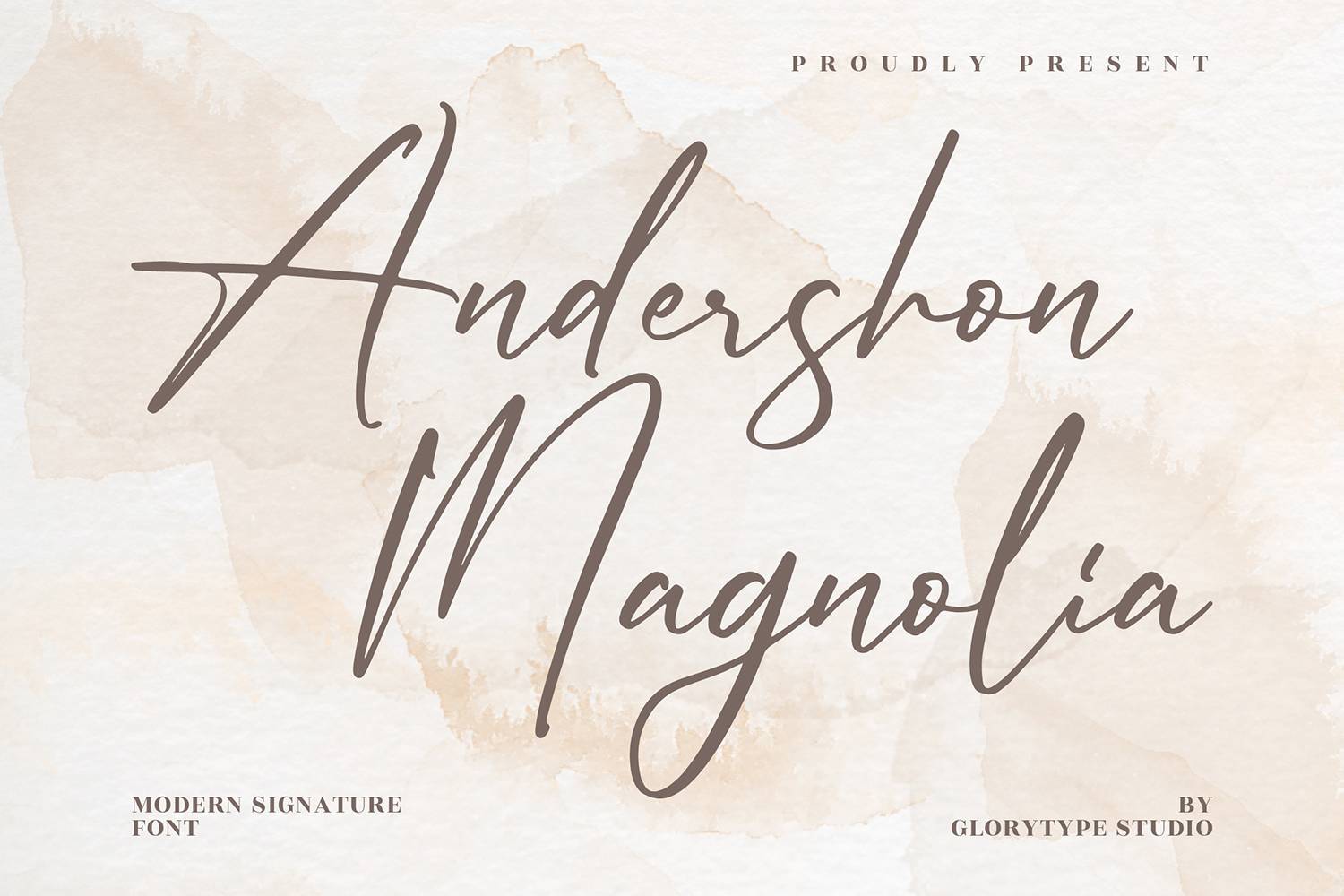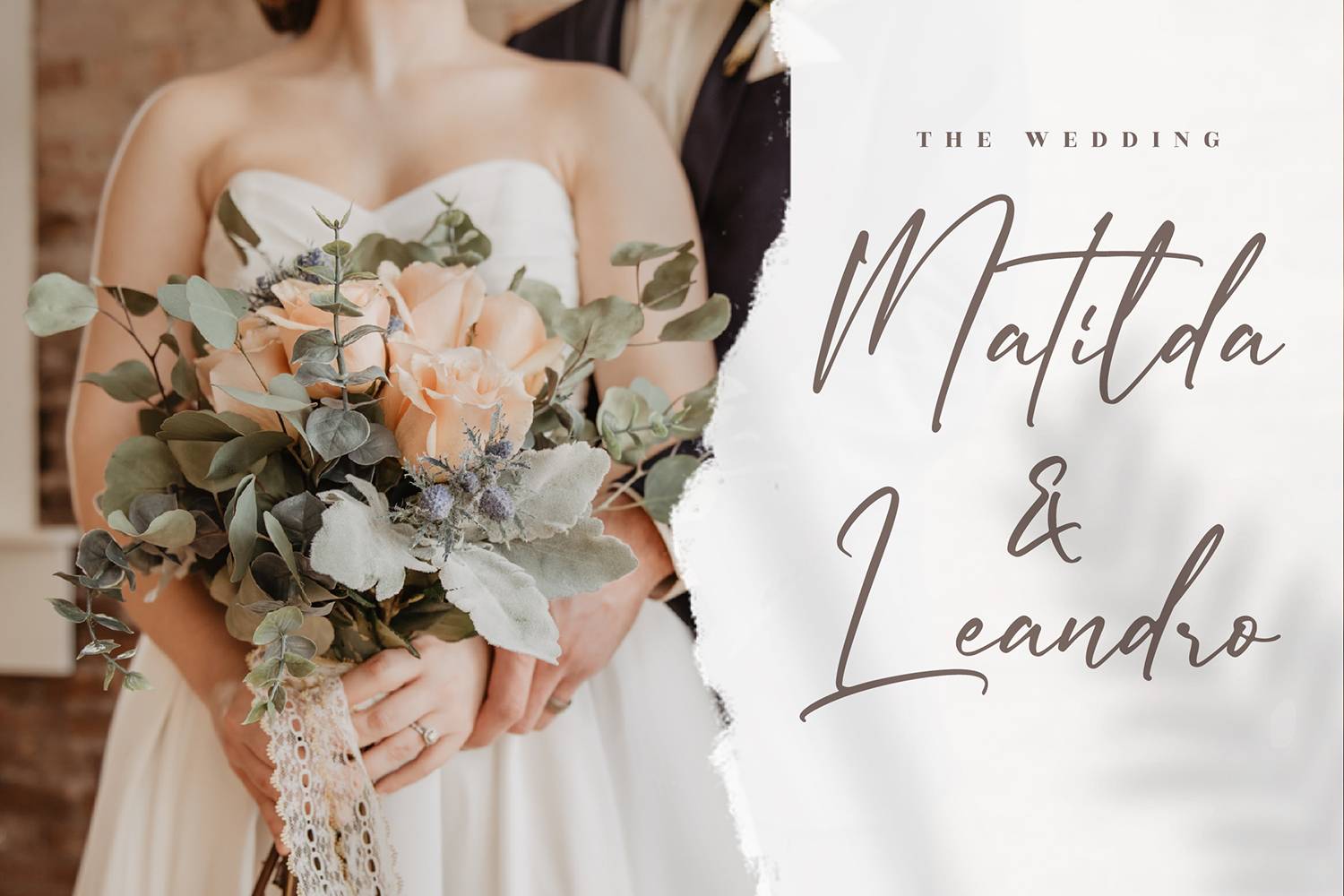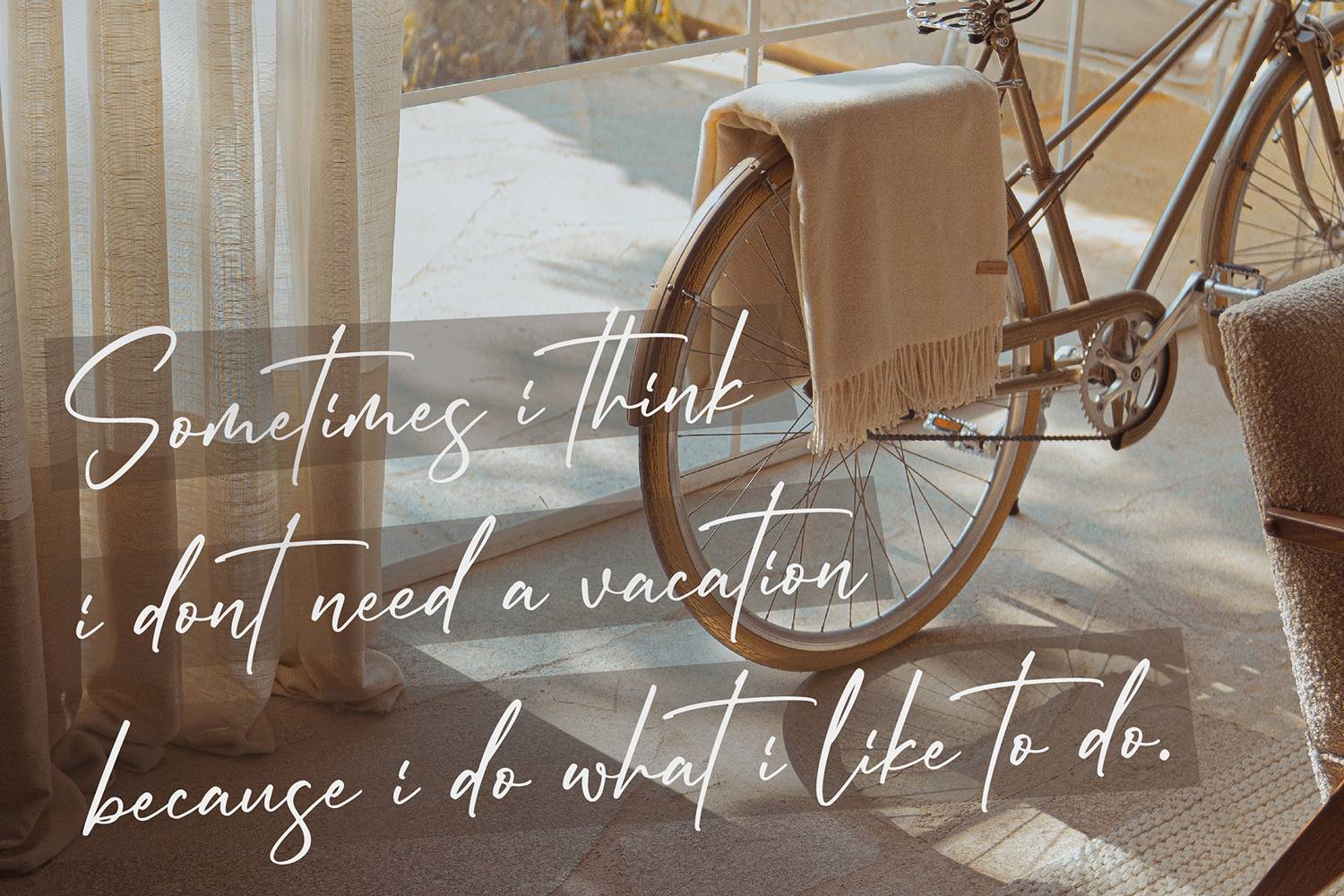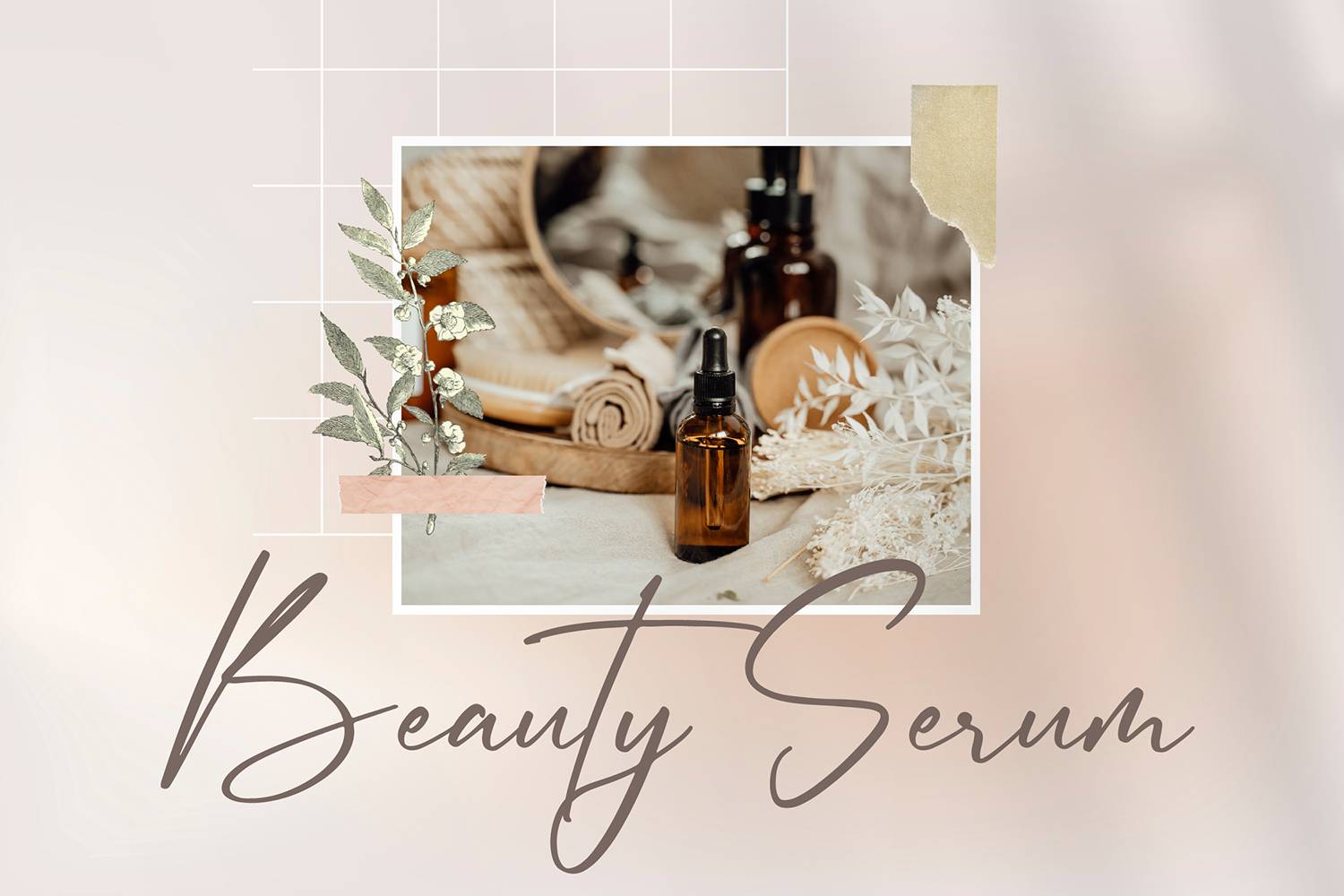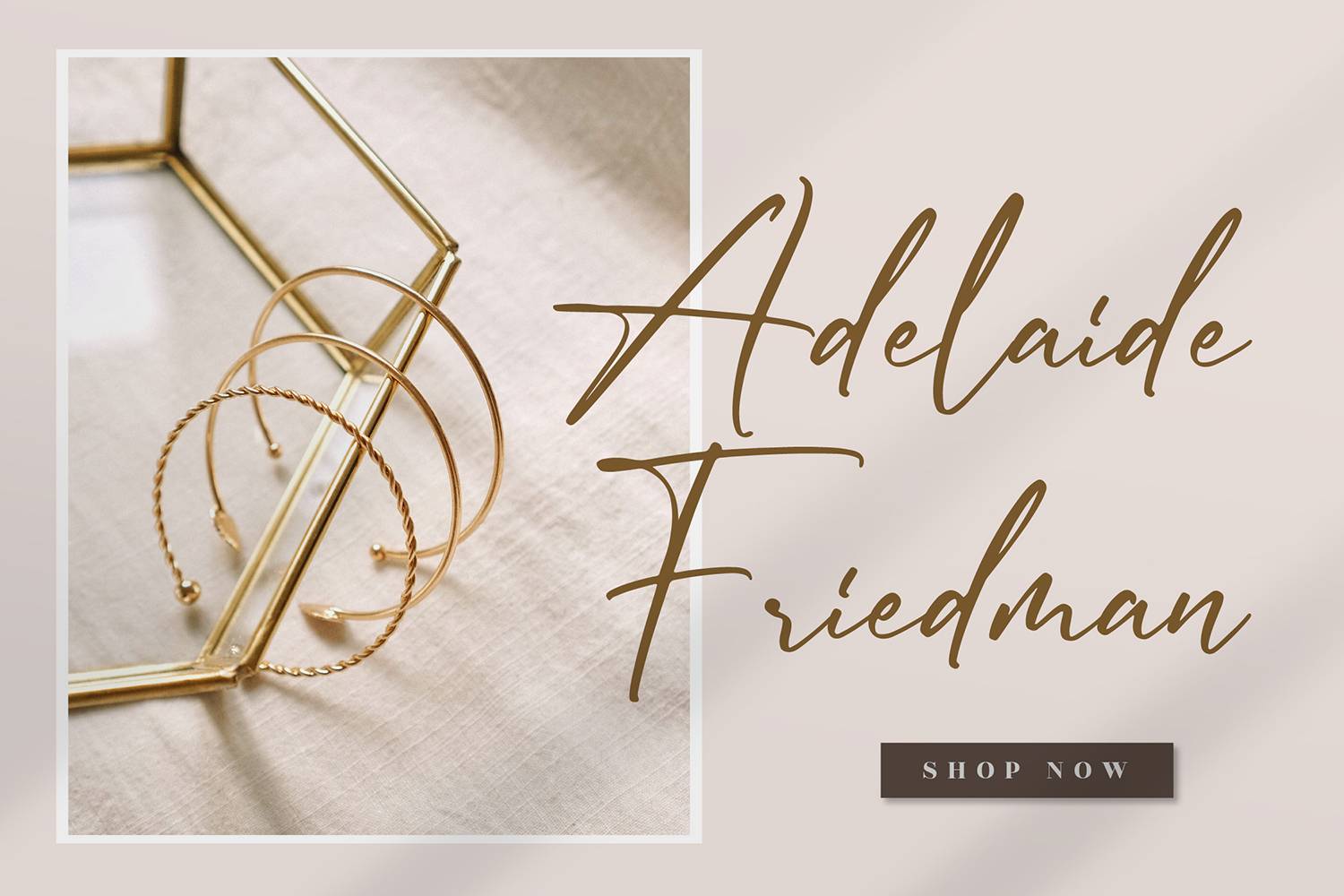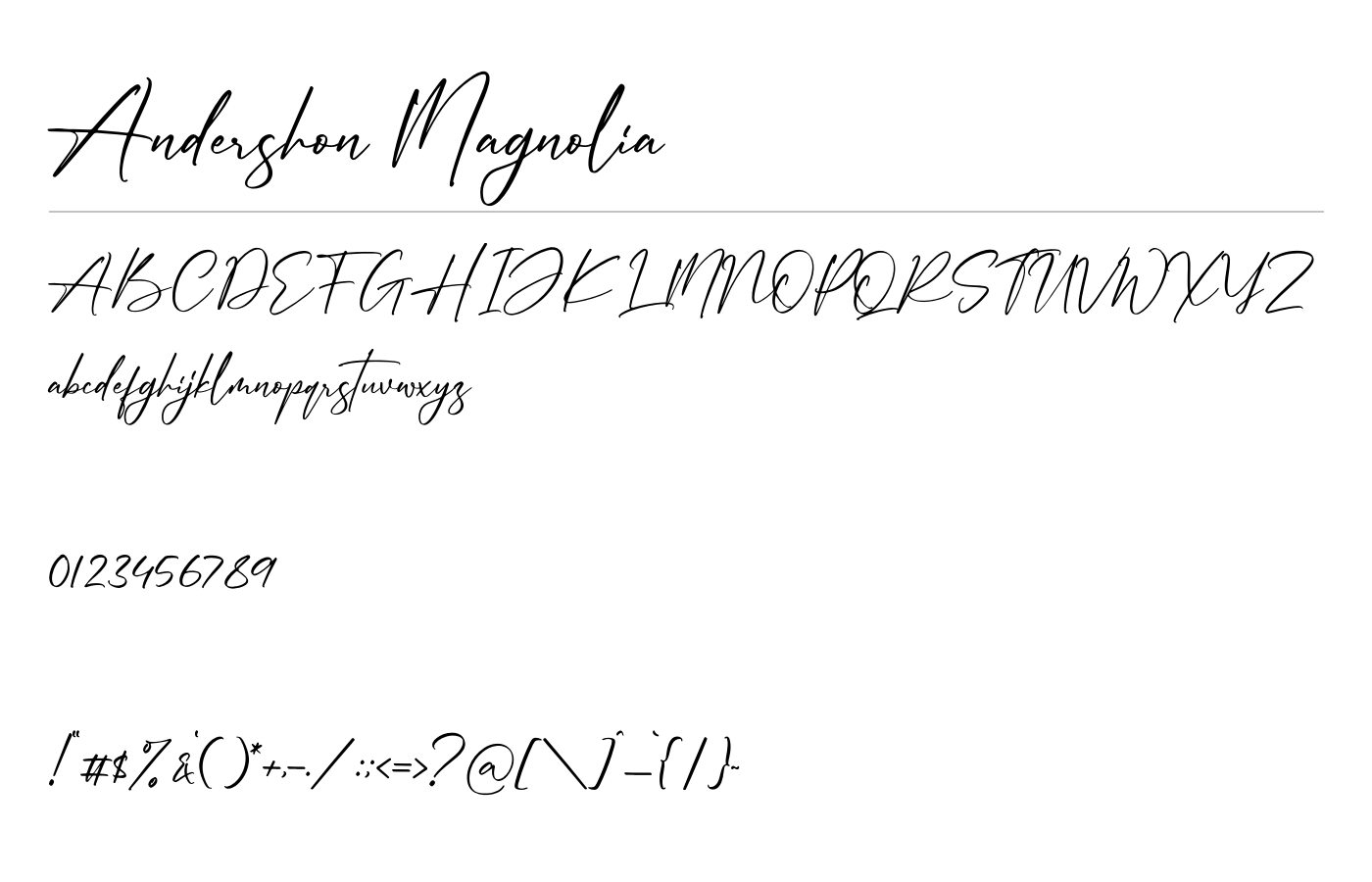
Andershon Magnolia is an elegant, handwritten script font with a delicate, flowing style that feels personal and graceful. Its fine, slightly irregular strokes give it a natural, artistic flair, making it perfect for invitations, branding, and creative projects where a stylish yet approachable look is desired. This font works especially well in decorative headlines and logos that aim to convey warmth and sophistication.
Andershon Magnolia Font
About Andershon Magnolia Font